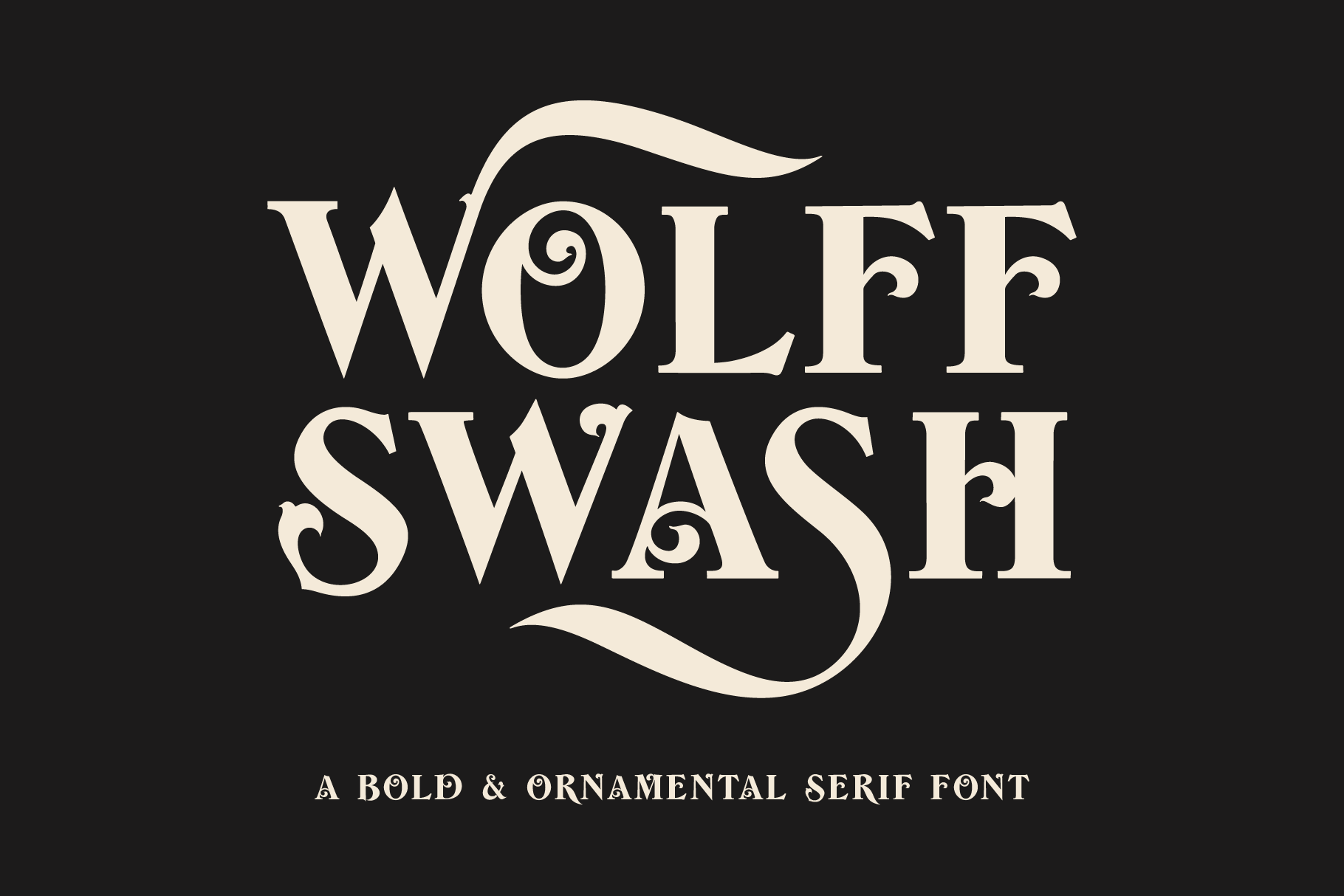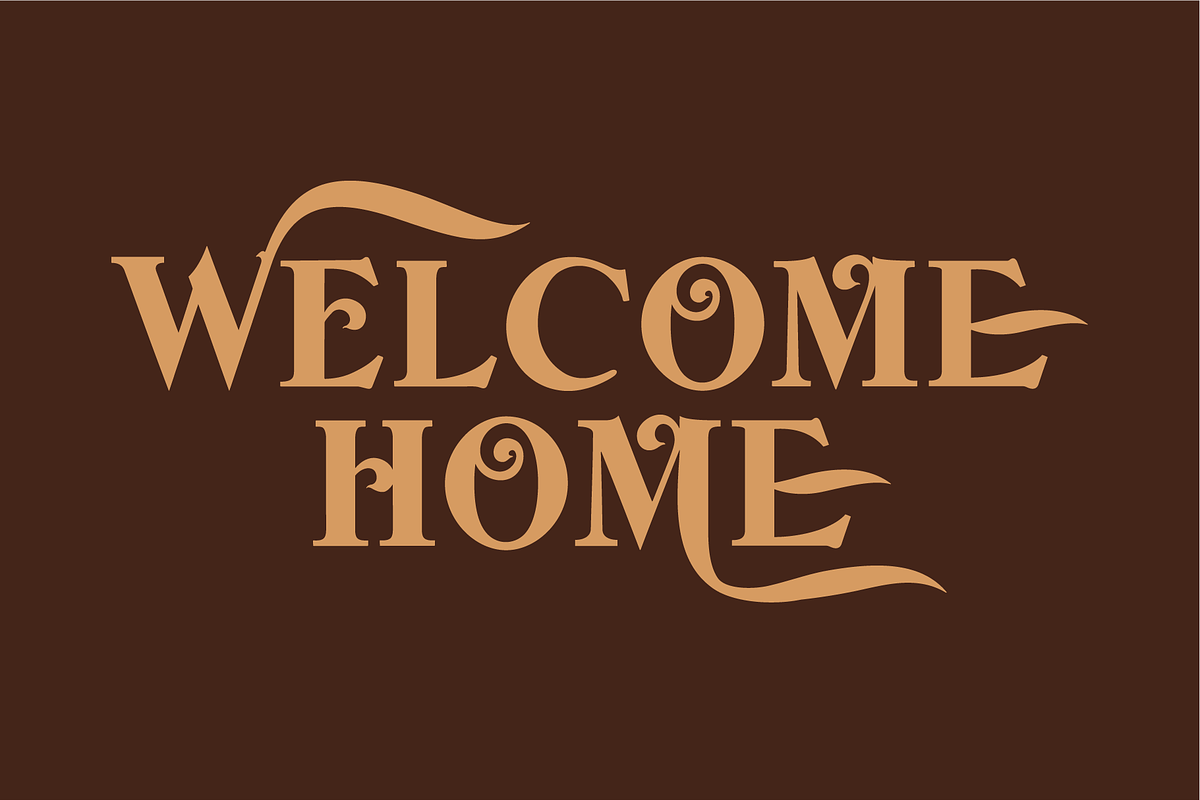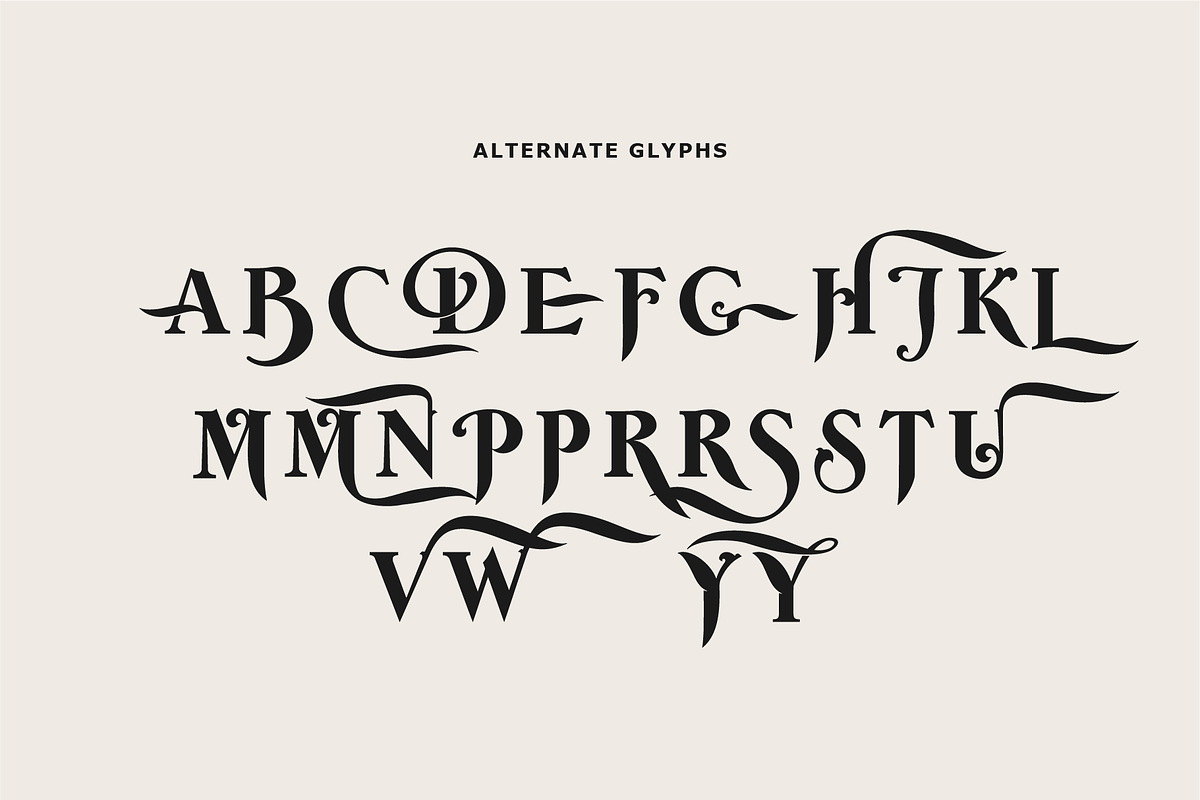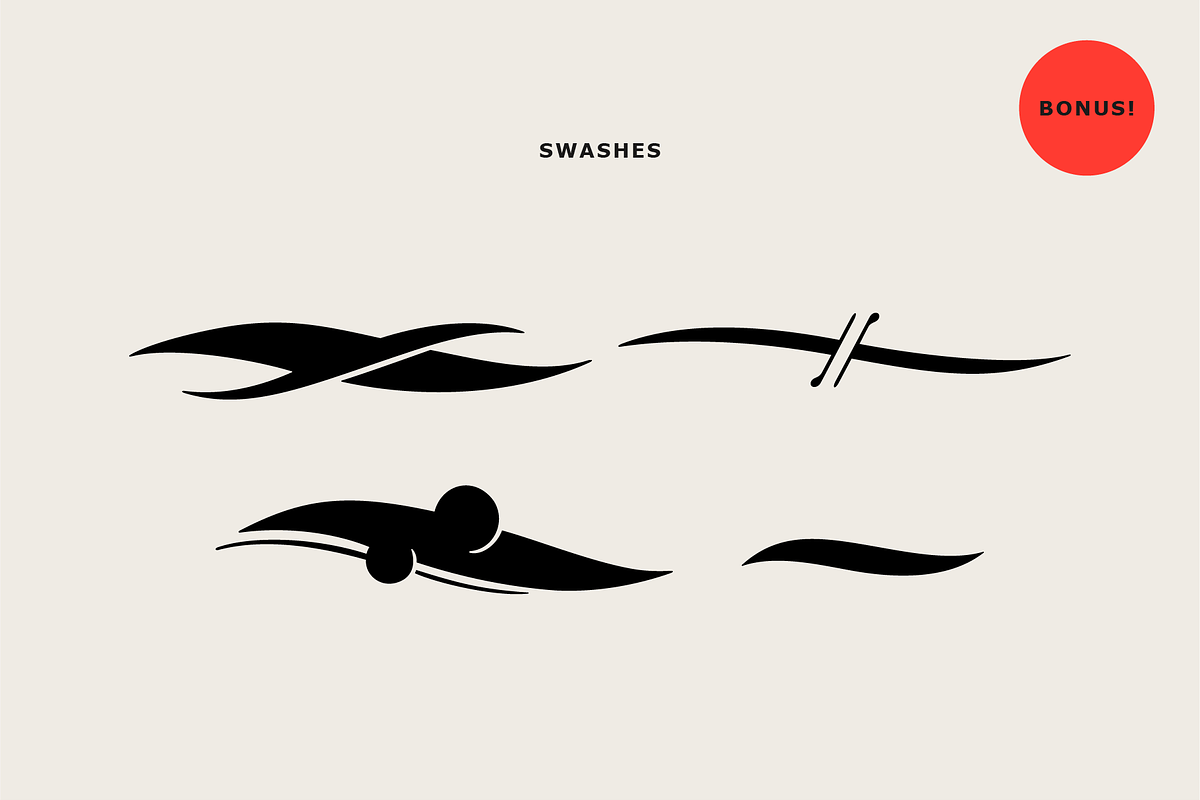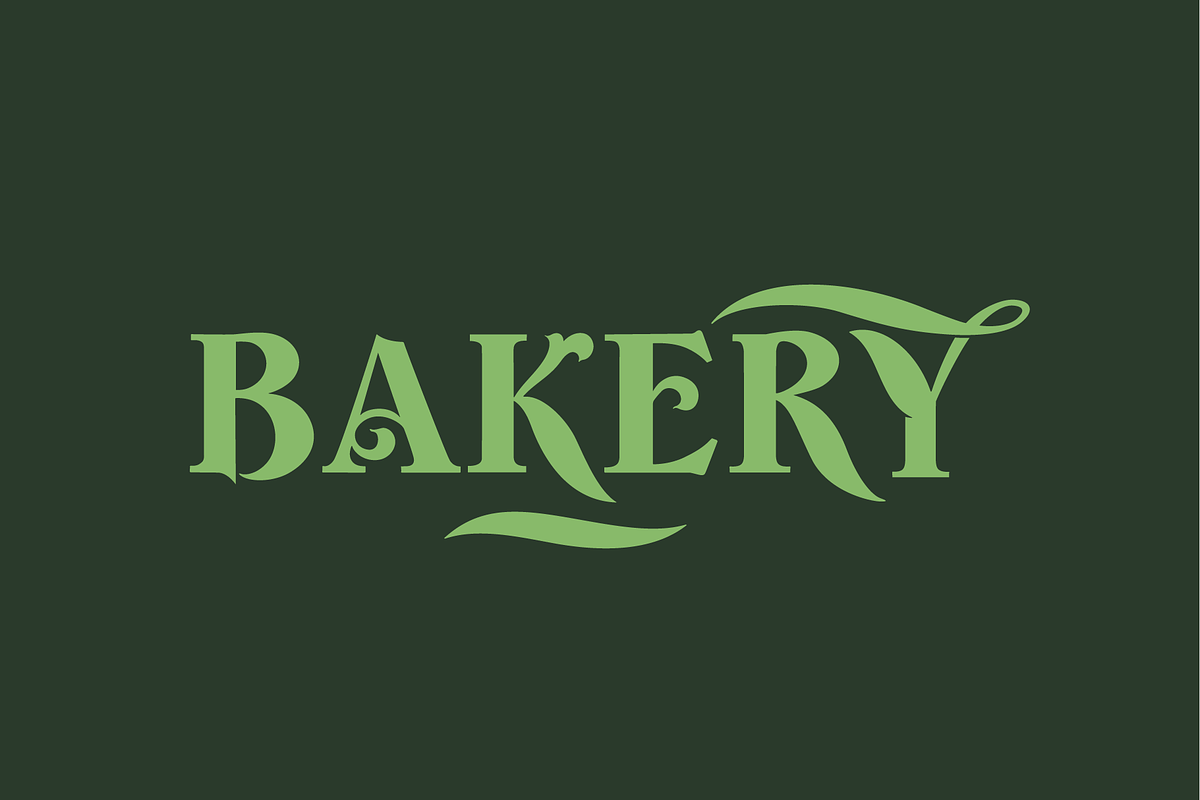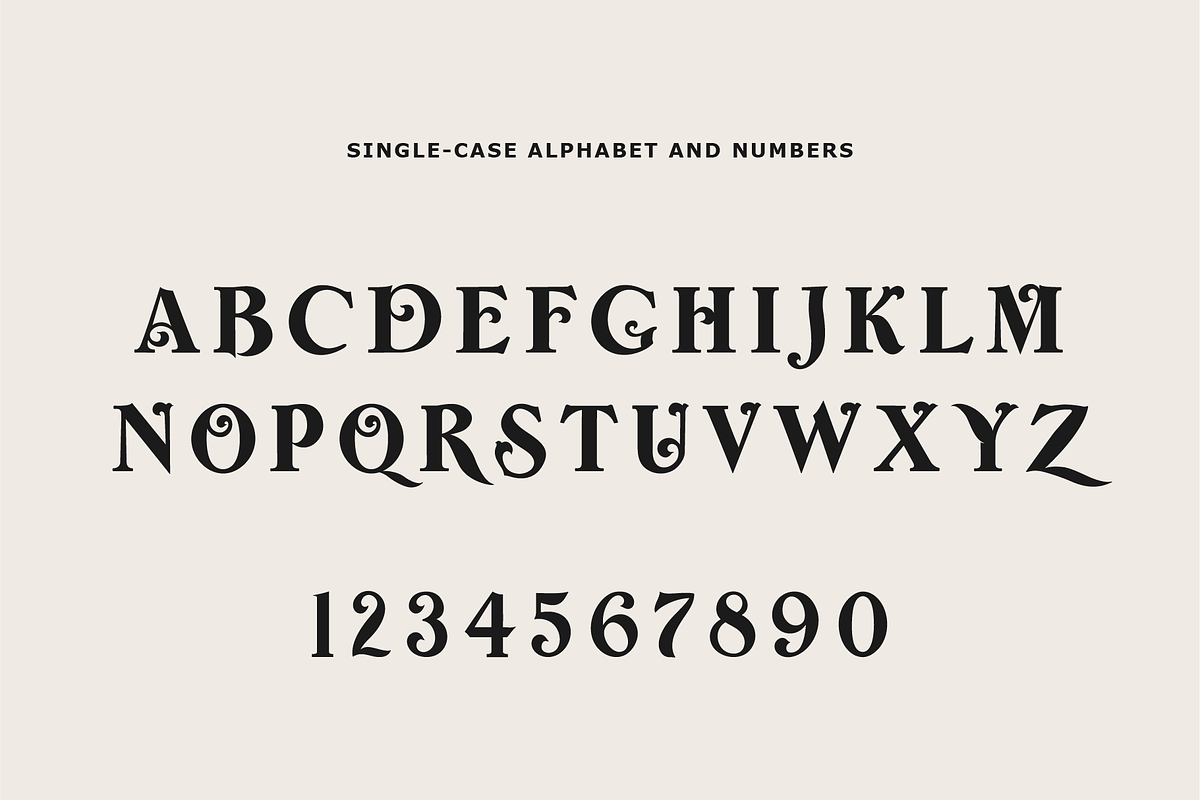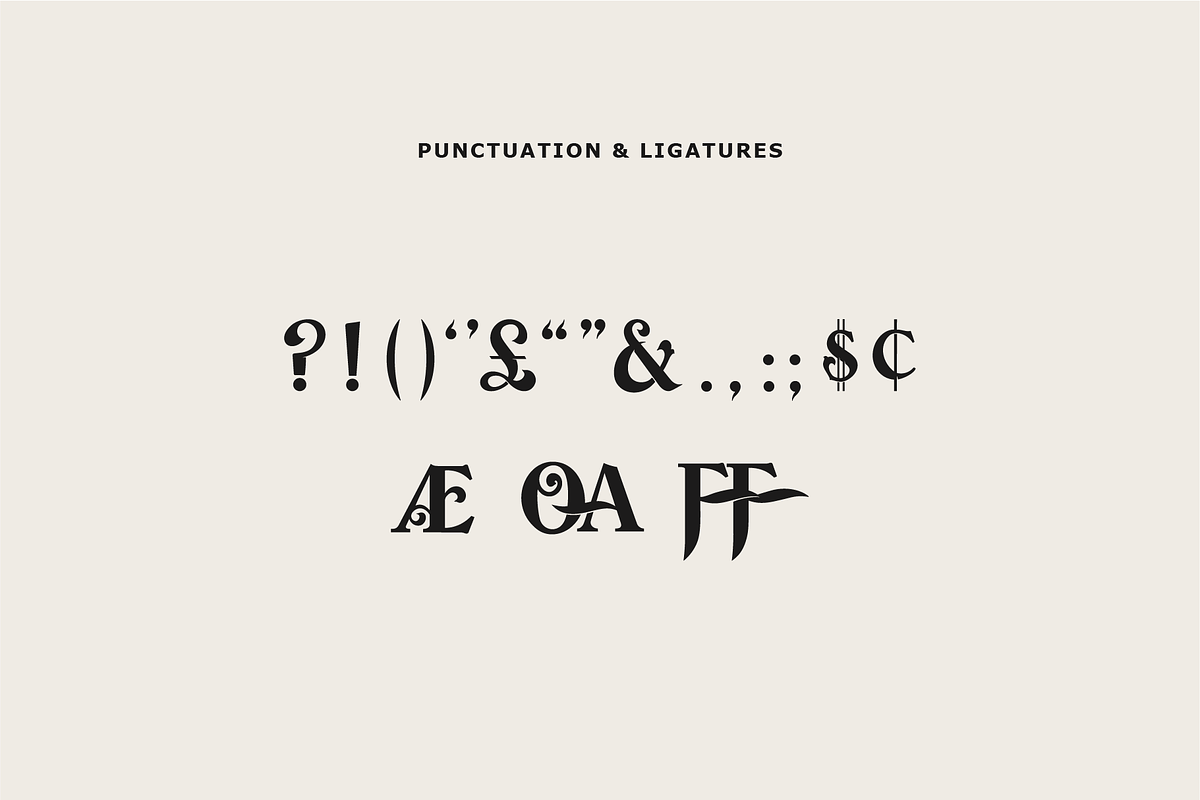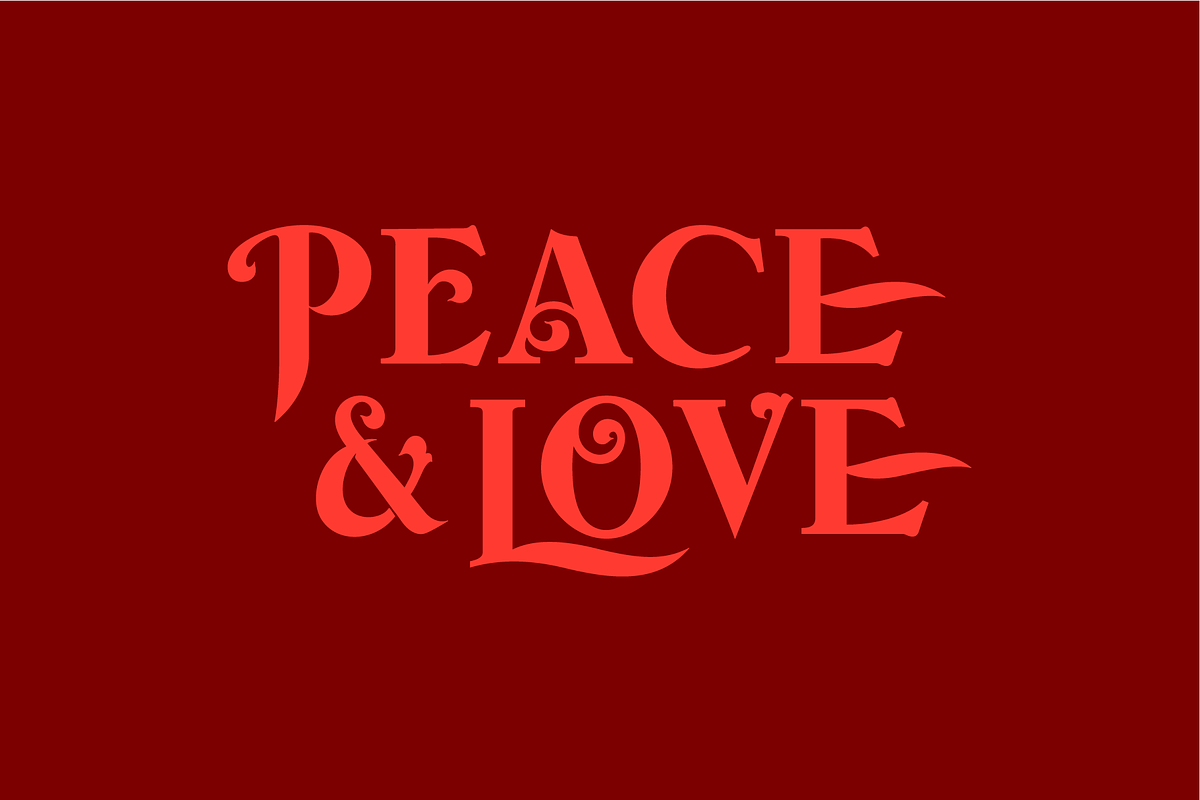
Wolff Swash - Bold Serif Font
Wolff Swash - A Bold & Ornamental Serif Font. Uppercase only!
Wolff Swash is a bold and decorative vintage-inspired serif typeface, featuring expressive swashes, curled flourishes, and striking letterforms. Drawing inspiration from 19th-century Victorian typography and ornamental typefaces, this classic style finds new life with a modern twist. Wolff Swash is perfect for signage, posters, merch design, logos, and premium product labels.
Let the curves and bold lines of Wolff Swash bring timeless beauty to your creative projects.
- Alternate glyphs for added style and distinction
- Bold, high-contrast serifs for strong visual impact
- Ideal for logos, branding, titles, and print design
- Vintage-inspired with a modern twist
- Uppercase Characters
- Lowercase Characters (SAME AS UPPERCASE CHARACTERS)
- Alternate Glyphs
- Symbols & Punctuation
- Individual Kerning
- 4 Bonus Swashes